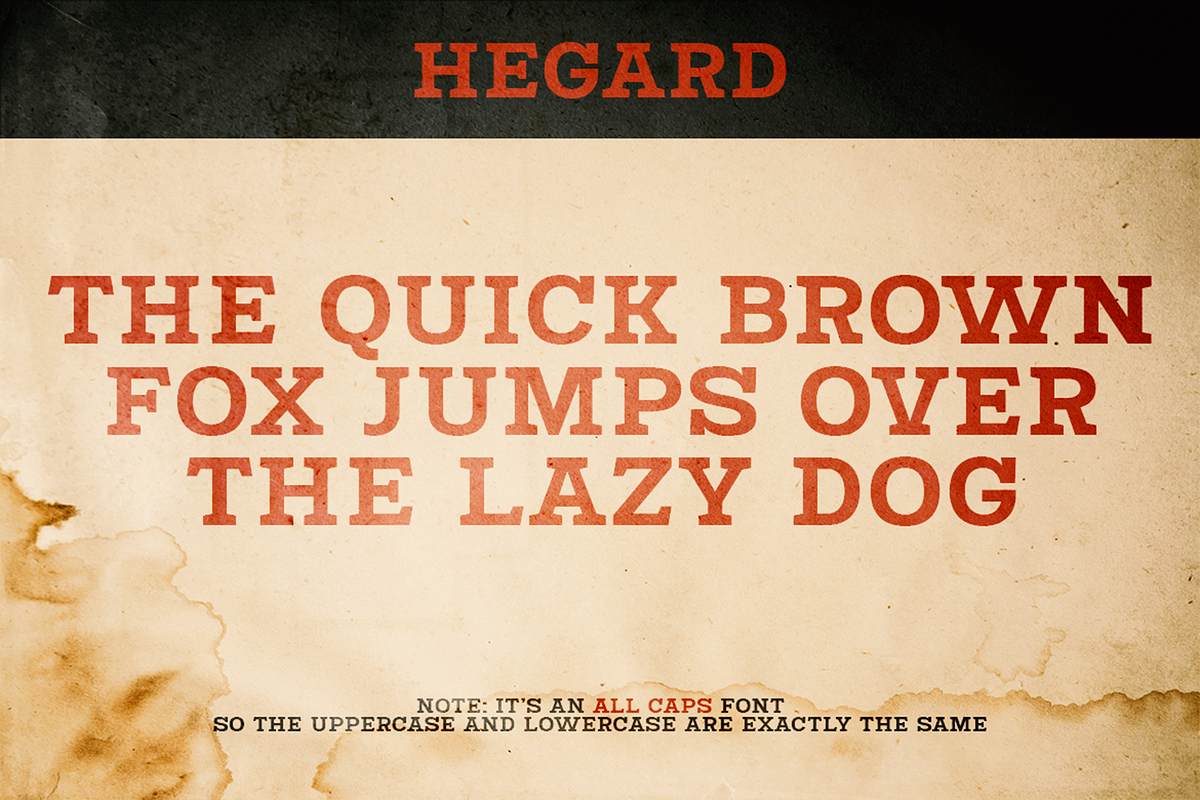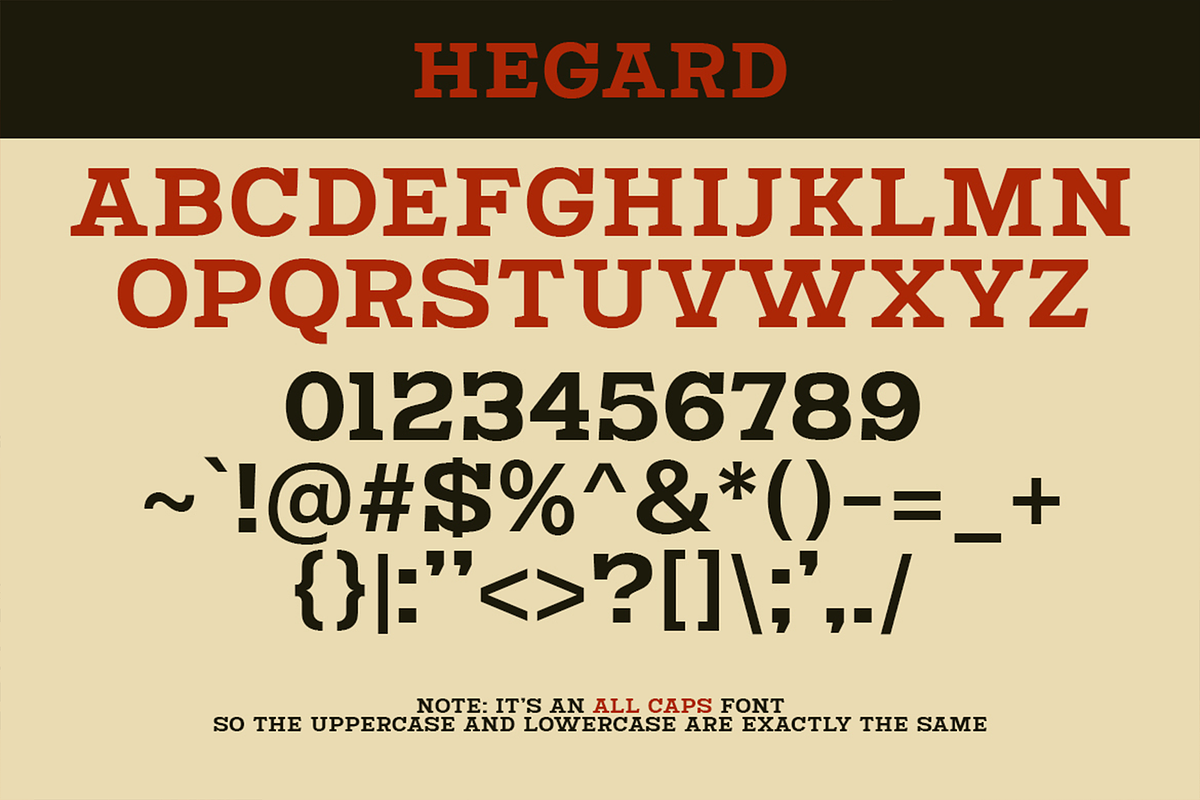
Hegard - Vintage Boxing Fonts
Hegard was inspired by the vintage boxing poster from the 80s era. It's a loud and bold statement to bring out the brave voice inside you, to the visual graphic design for your project.
Perfectly fit for your logo, branding, poster design, youtube thumbnail (because it's loud as hell), album artwork, music project, book cover, you name it.